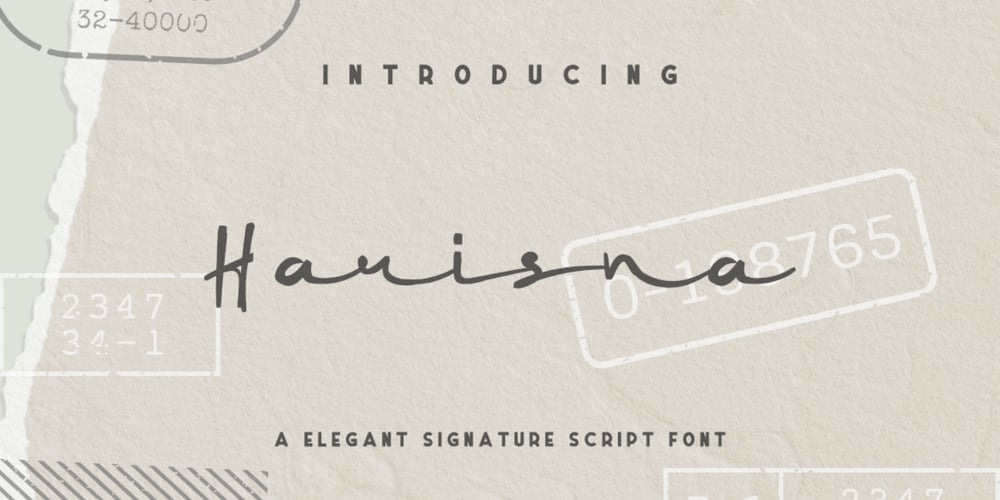
Harisna
Harisna font
Harisna Font Family was designed by Bayu Aji Fais Mursid and published by Bayuktx. Harisna contains 1 styles and family package options. Hello,Thank you for visiting my products, we will give you the best choice.Harisna a Elegant Signature Script Font, This font is made with a high premium quality level which you can use as flyers, quotes, posters, banners, packaging, merchandise, logotypes and much more.FEATURES :* Uppercase* Lowercase* Number* Punctuation* Multilingual* PUA Encode* OpentypeFILES INCLUDED :* Harisna. 1Thank you